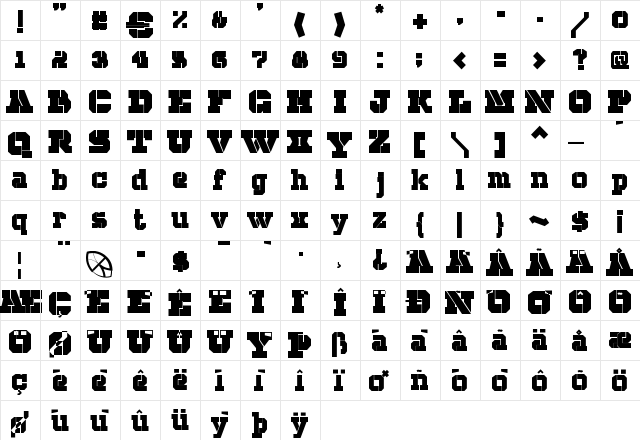
glazer Regular
Design Context for glazer Typeface
glazer is a composed and adaptable typeface that performs quietly and consistently across a wide range of design contexts.